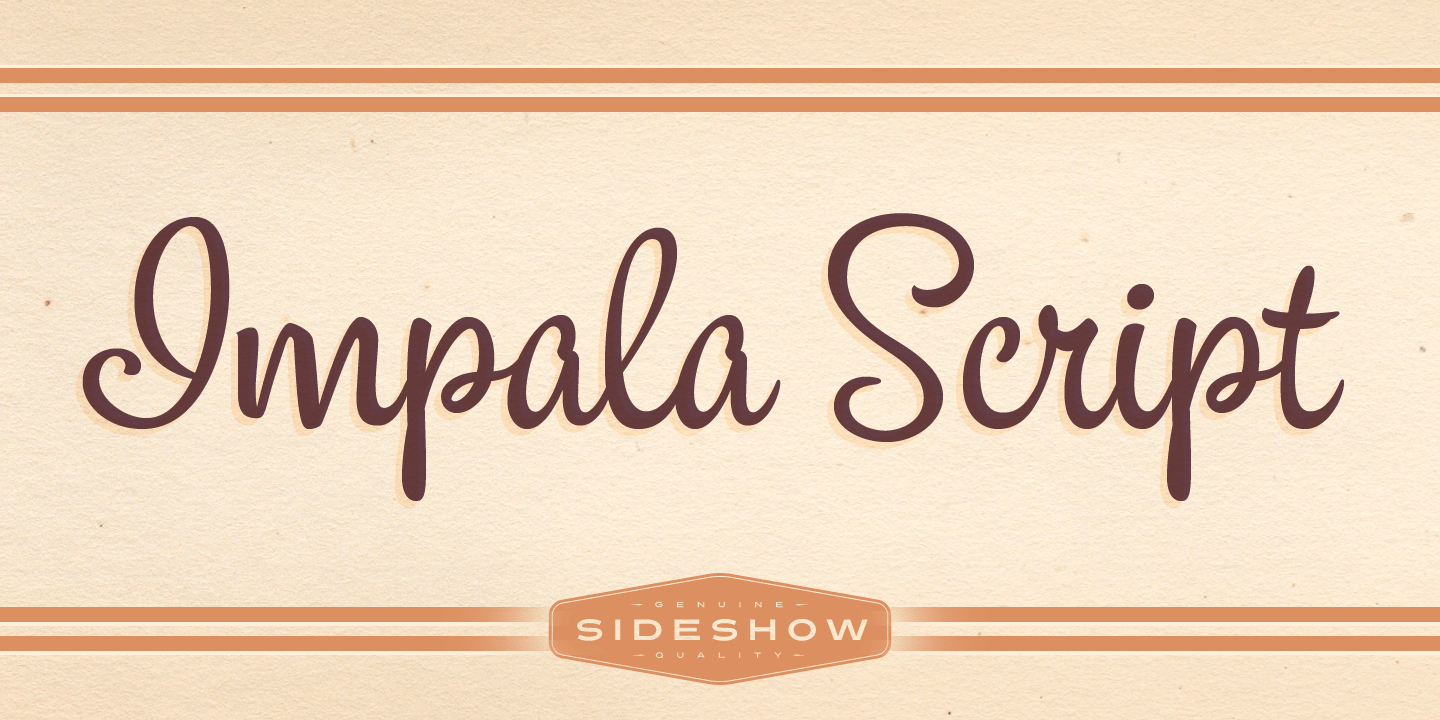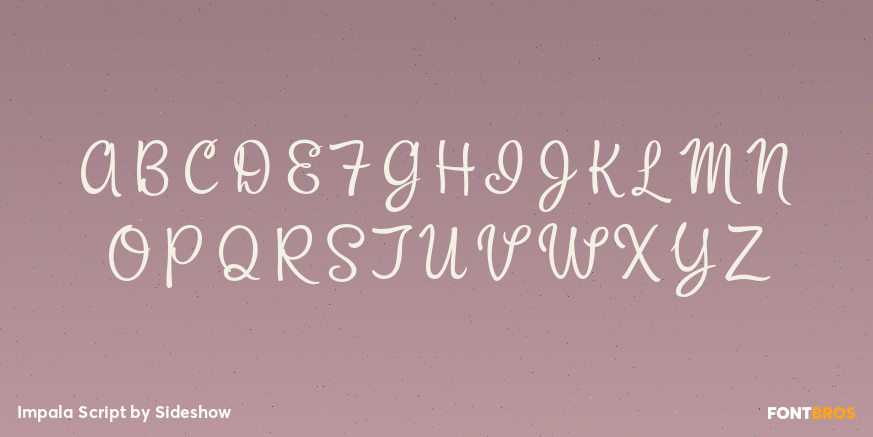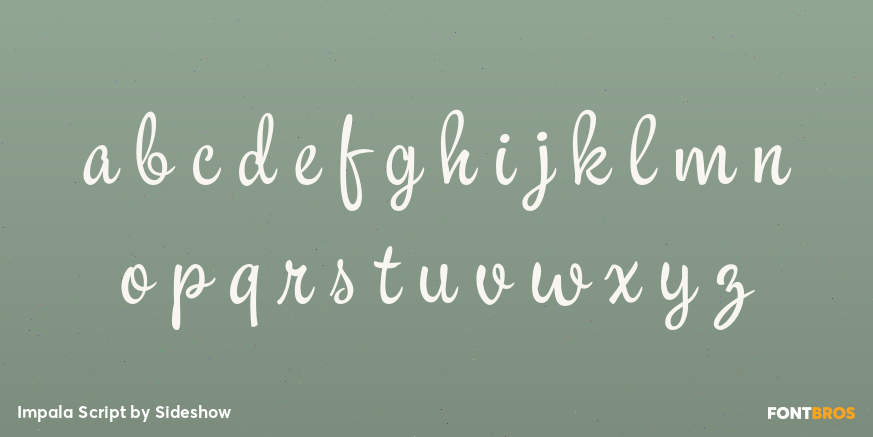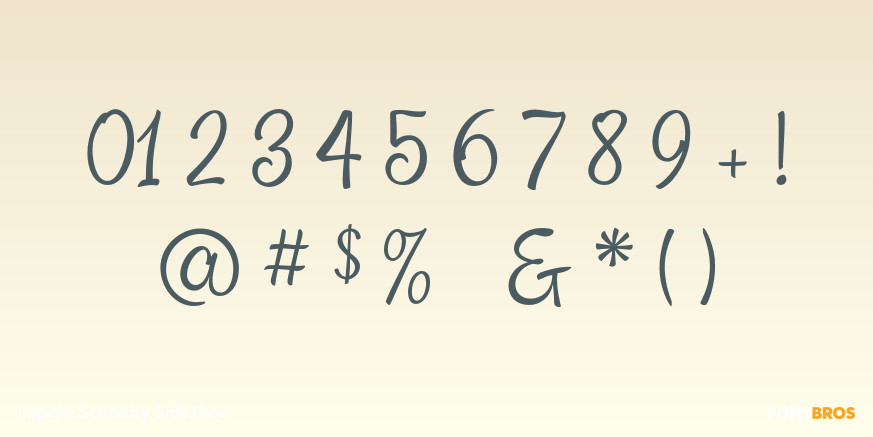
Impala Script
Font Family by Sideshow
Buy NowElegant and graceful as the gazelle for which it is named, Impala Script is the perfect blend of formal and casual. It's equally comfortable in a display or text setting for many applications. Inspired by late 1940s Hollywood with a touch of Art Deco Sho-Card writing, Impala Script is loaded with a full measure of alternate characters and automatic connecting ligatures in OpenType format - Another great addition to your font library from Sideshow.